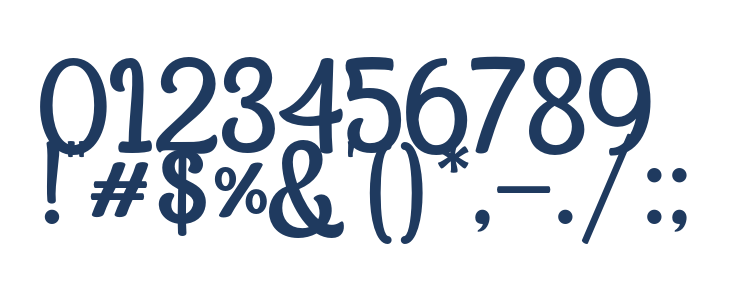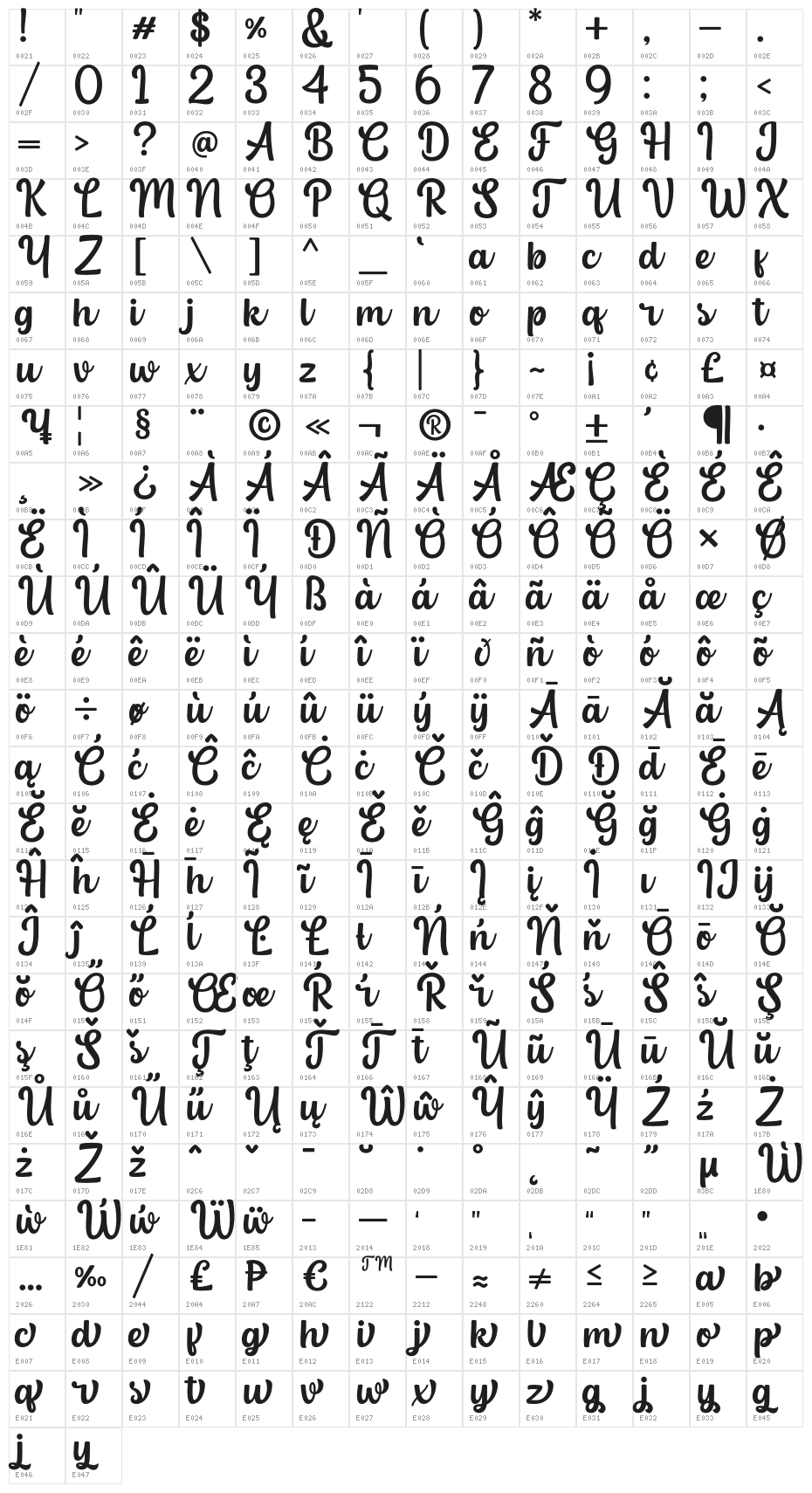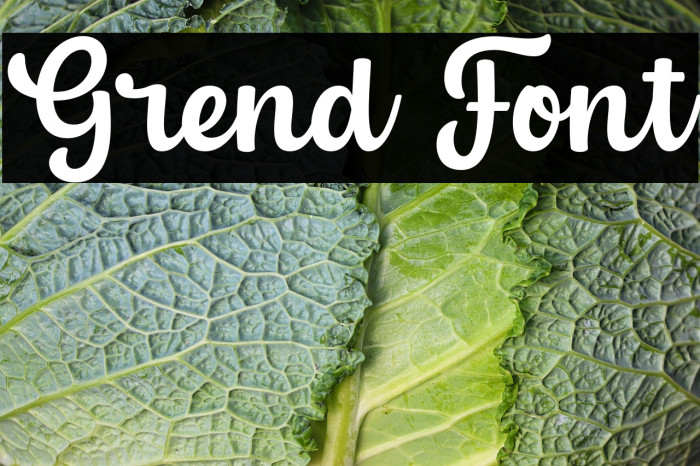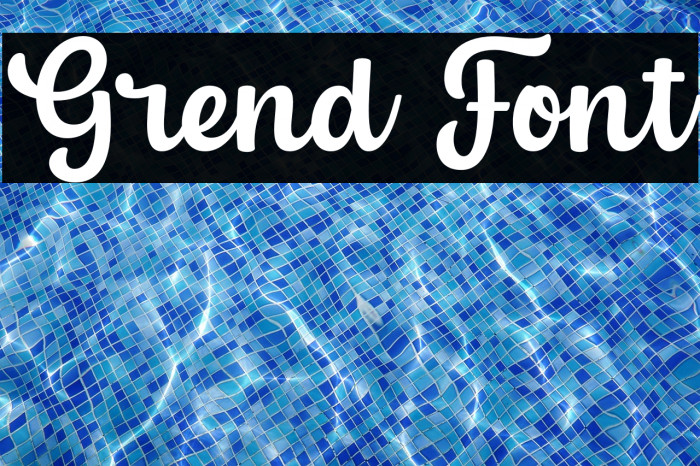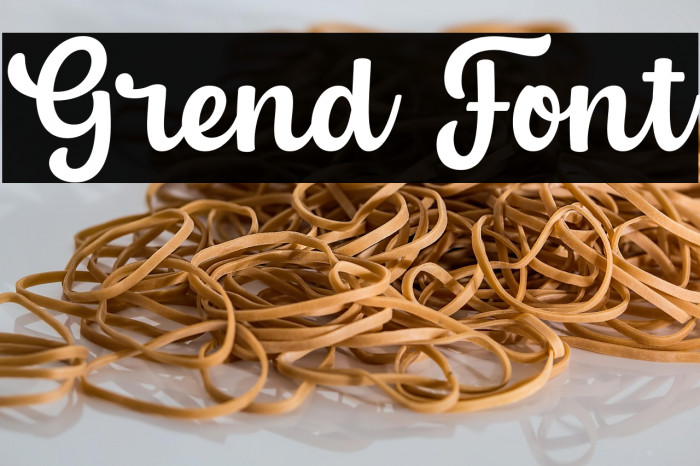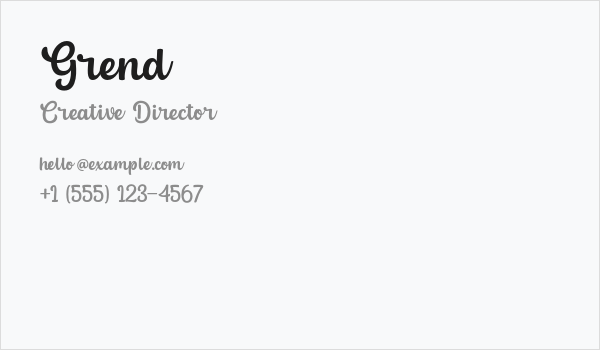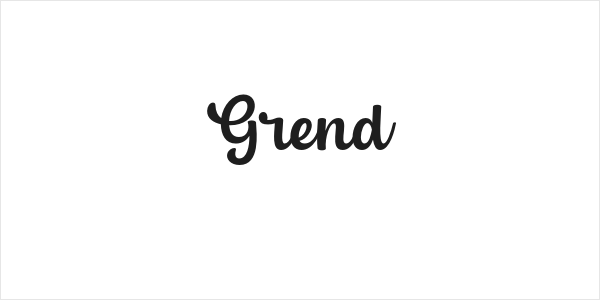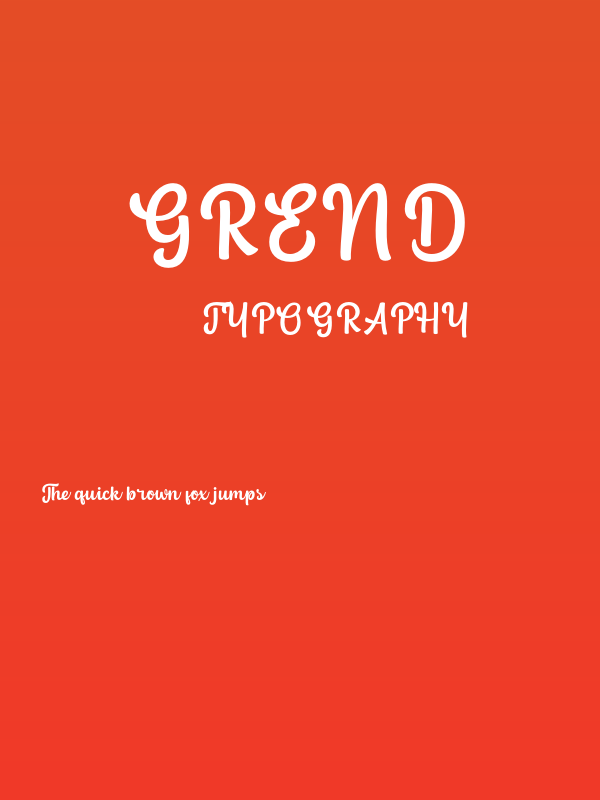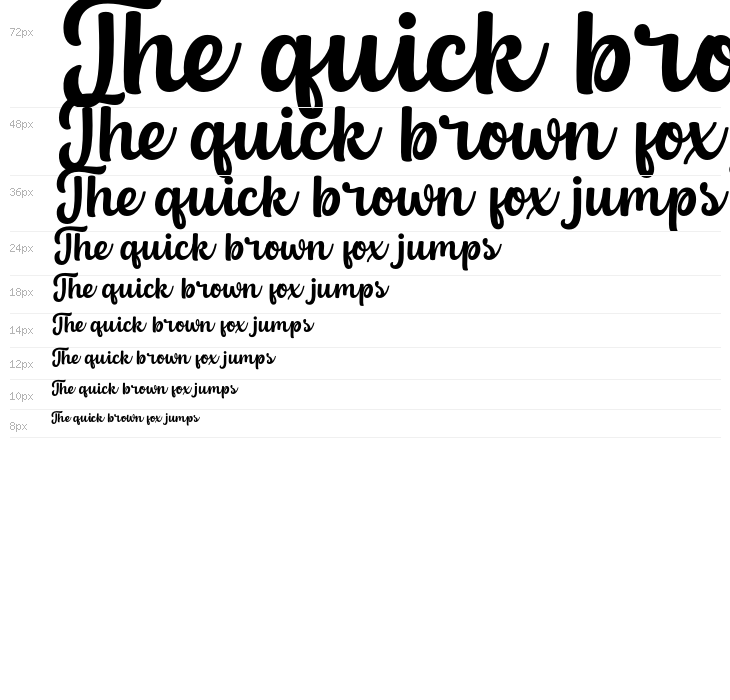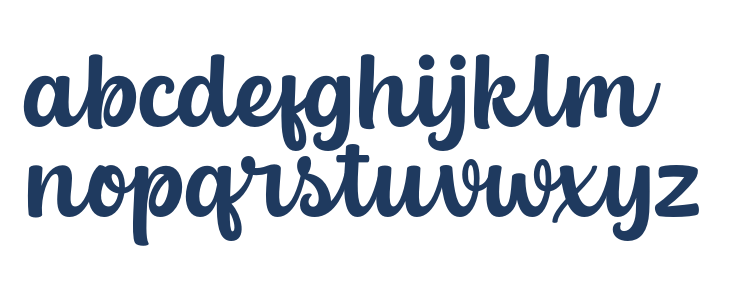
Grend Font
Grend Description
This font features a playful and whimsical style, characterized by its smooth, flowing curves and rounded edges. The uppercase letters exhibit a consistent height with a slight slant, giving them a dynamic appearance. The lowercase letters maintain a cohesive look with a similar slant and rounded forms, enhancing the font's friendly and approachable nature. The numerals are bold and clear, ensuring readability while maintaining the font's overall playful aesthetic. Special characters are well-integrated, matching the style of the alphabetic characters. This font's design is ideal for projects that require a touch of fun and creativity.
| Overall Style | Playful |
| Use Case | Logos, Headlines, Posters |
| Proposed Projects | Ideal for children's books, playful branding, greeting cards, and creative posters. |